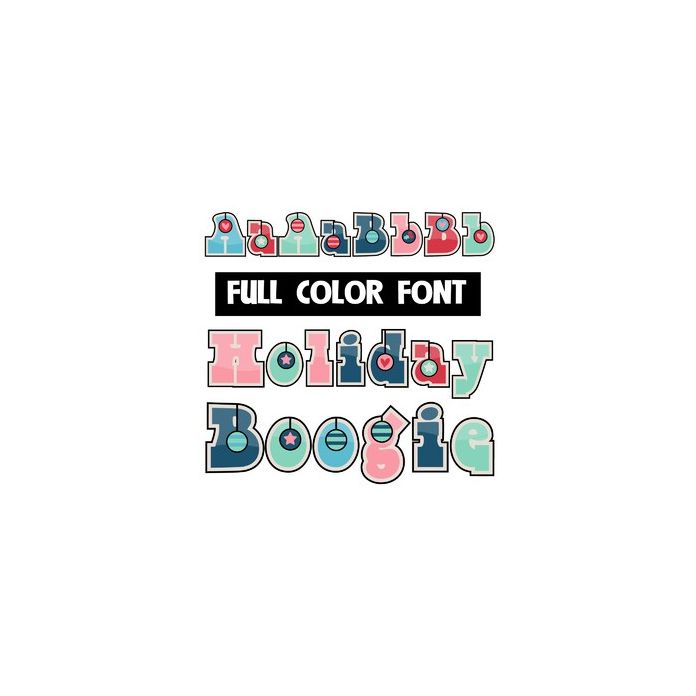
This full-color font features a retro font with fun ornaments in many letters. There is a an alt version w/ secondary colors available through your system's or Silhouette's glyph map.